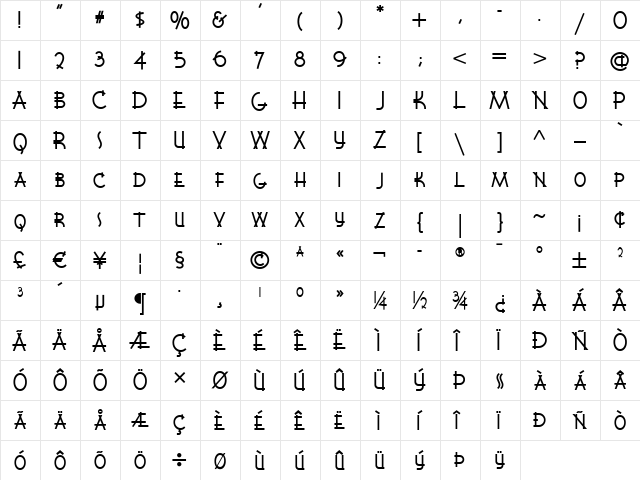
WigwamNF Regular
| Foundry | Nick Curtis |
Design Context for WigwamNF Typeface
WigwamNF is a composed and adaptable typeface that performs quietly and consistently across a wide range of design contexts.